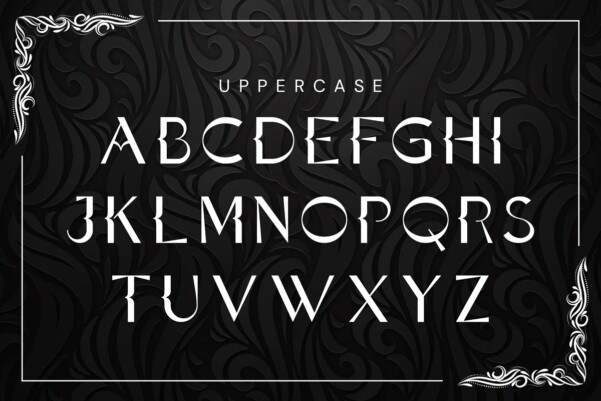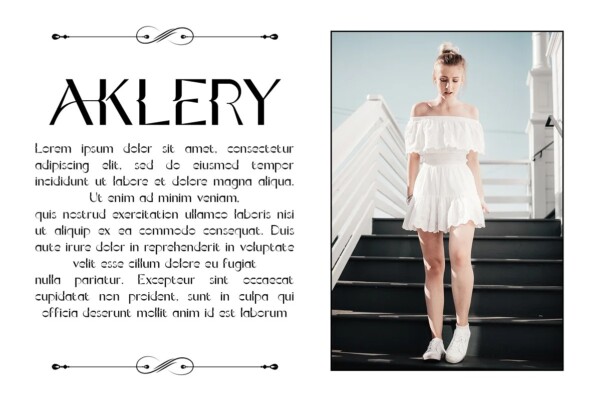
Talika Font
Talika Font is a modern sans serif font. This font is made in classic proportions and decorated with elegant decorations. This font is suitable for fashion and style designs. brand names and various other designs.Talika is a modern sans serif font. This font is made in classic proportions and decorated with elegant decorations. Its stylish alternation and binding make this font the perfect partner for any project.